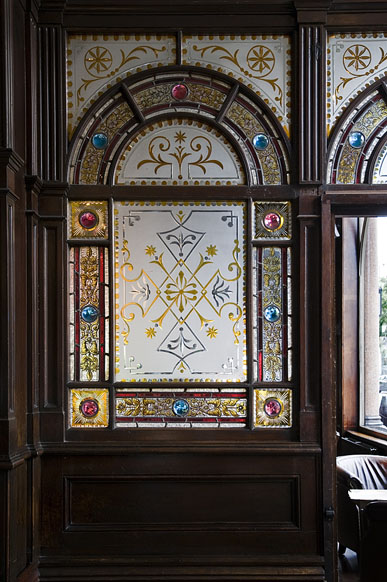
Yes....another English pub photo
Thought everyone might be as interested as I was in these glass pieces. Will also post them in the Masterpieces section with a few others later in the week. I just thought they were amazing pieces, not to mention they are also just around the corner from 10 Rillington for those who might be crime history buffs
The pub has recently become a "gastro pub" with an emphasis on food but it's history puts it soundly in the Victorian era
Absolutely fanciful!
These are the closest to some other panels I saw in an old warehouse in L.A. (1981)
The panels I saw there had also added several colors that had been fired over the acid frosted areas. I have never seen any other panels done in this manner, that is, with colored frosts.
While in that warehouse, I also saw another jaw dropping glass treatment that I have never found again. I describe these panels as follows. The treatment read the same from either side. They were made up of two clear glass sheets, and in between was a floral design, similar to a stained glass pattern. The line work was of round polished brass wire, bent to make the floral designs. These wires were positioned to contain small uniform diameter colored transparent glass beads. They were a little more than 1/8" in diameter. There was apparently a fair amount of color values available to the artist in these glass balls. Enough that in making a long leaf shape or flower petals, the color values of the balls were placed so as to make the leaf appear to twist with shadows and contours.
I wonder if someday Dave or Doug may come across another example of these types of panels. I'd like to know the maker and imagine there was a patent filed on the process.
Absolutely beautifull.
Sometimes I in awe and think that there is just no limit in glass decorating.